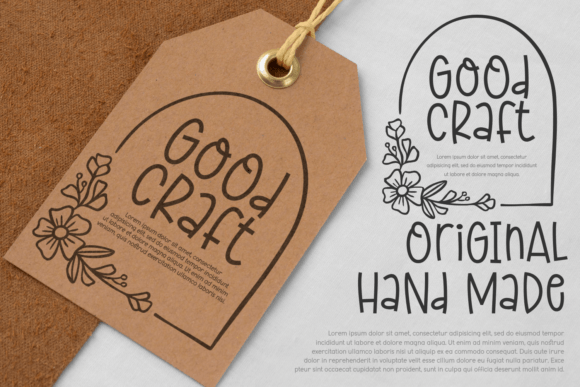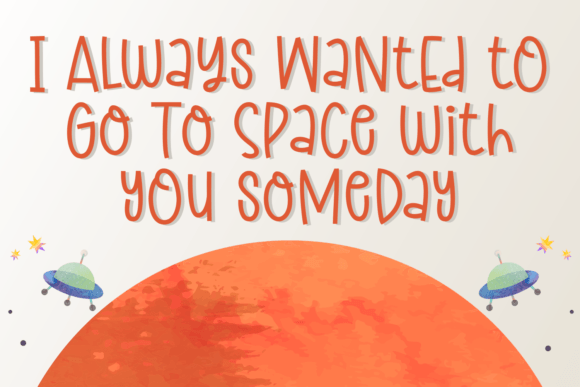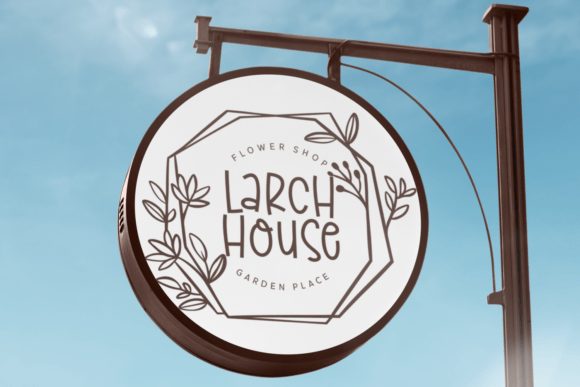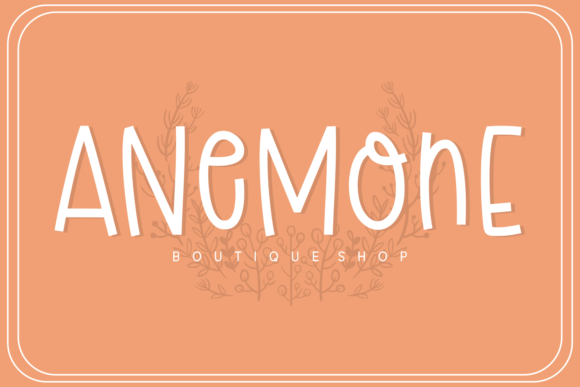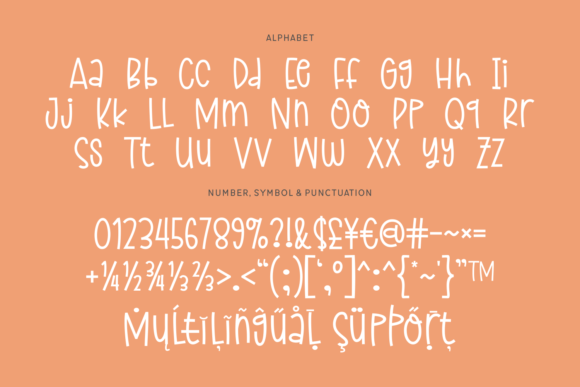
Introducing Blissful Morning Font: The Perfect Addition to Your Font Library
Are you tired of using the same old fonts in your designs? Do you want to add a touch of playfulness and whimsy to your creations? Look no further than the Blissful Morning Font! This adorable handwritten font is sure to bring a smile to your face and elevate your designs to the next level.
What is Blissful Morning Font?
Blissful Morning Font is a cute and playful handwritten font that is perfect for a wide range of design projects. Whether you’re creating a social media graphic, a blog post, or a craft project, this font is sure to add a touch of personality and charm. With its whimsical and carefree vibe, Blissful Morning Font is ideal for designers and crafters who want to create unique and eye-catching designs.
Why You’ll Love Blissful Morning Font
So, what makes Blissful Morning Font so special? Here are just a few reasons why you’ll love adding this font to your library:
- Playful and Whimsical: Blissful Morning Font has a playful and whimsical feel that’s perfect for creating fun and engaging designs. Whether you’re designing for a kids’ brand or just want to add some personality to your project, this font is sure to deliver.
- Versatile: This font is incredibly versatile and can be used for a wide range of design projects. From social media graphics to craft projects, Blissful Morning Font is the perfect choice.
- Easy to Read: Despite its playful vibe, Blissful Morning Font is still easy to read, making it perfect for body text and headlines.
- Unique: With its unique and hand-crafted feel, Blissful Morning Font is sure to help your designs stand out from the crowd.
Design Ideas Using Blissful Morning Font
Blissful Morning Font is incredibly versatile and can be used for a wide range of design projects. Here are a few ideas to get you started:
- Social Media Graphics: Use Blissful Morning Font to create eye-catching social media graphics that are sure to grab attention.
- Craft Projects: Add a personal touch to your craft projects, such as handmade cards, gift tags, and scrapbook pages.
- Blog Posts: Use Blissful Morning Font to add a touch of personality to your blog posts and make them more engaging.
- Invitations: Create beautiful and unique invitations for parties, weddings, and other special events.
In conclusion, Blissful Morning Font is a wonderful addition to any font library. With its playful and whimsical vibe, versatility, and ease of use, this font is sure to become a favorite among designers and crafters. Whether you’re creating social media graphics, craft projects, or blog posts, Blissful Morning Font is the perfect choice. So why wait? Download Blissful Morning Font today and start creating beautiful and unique designs!